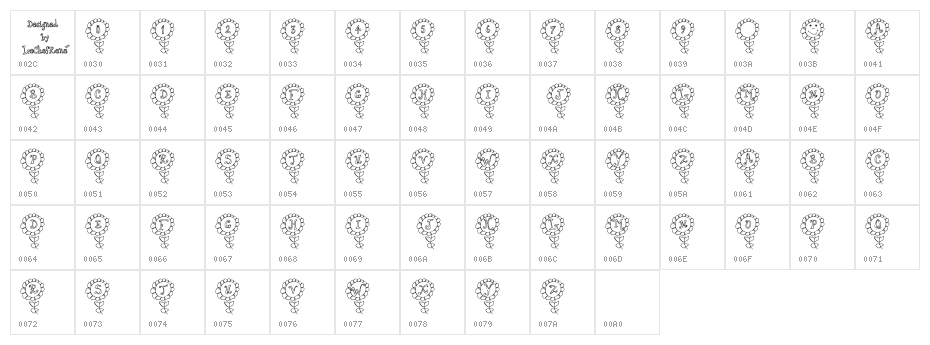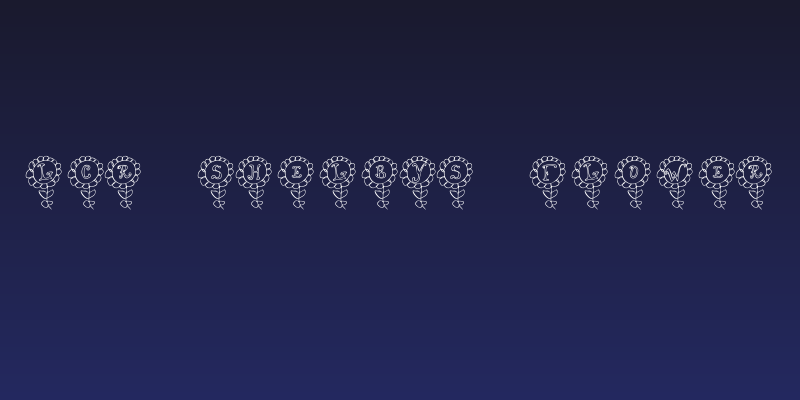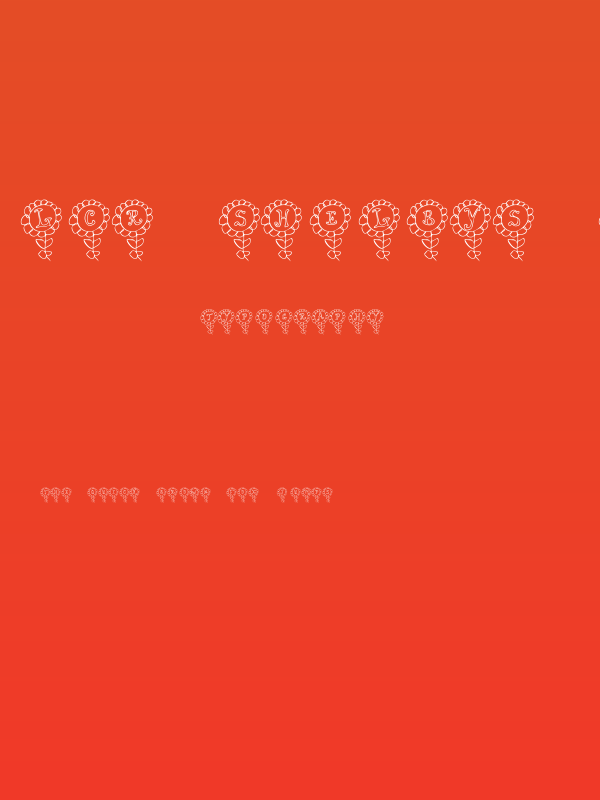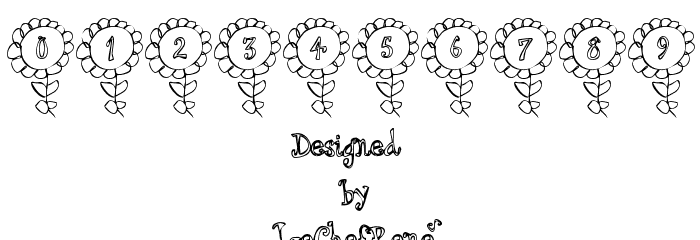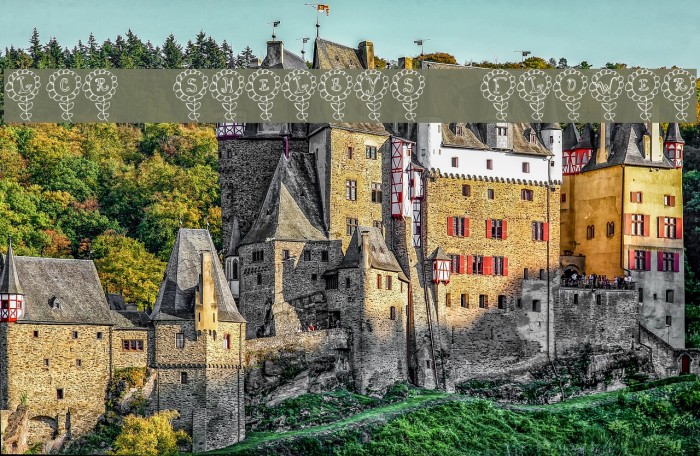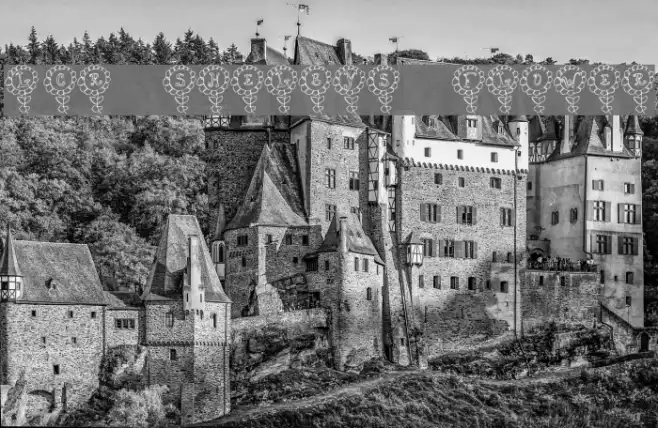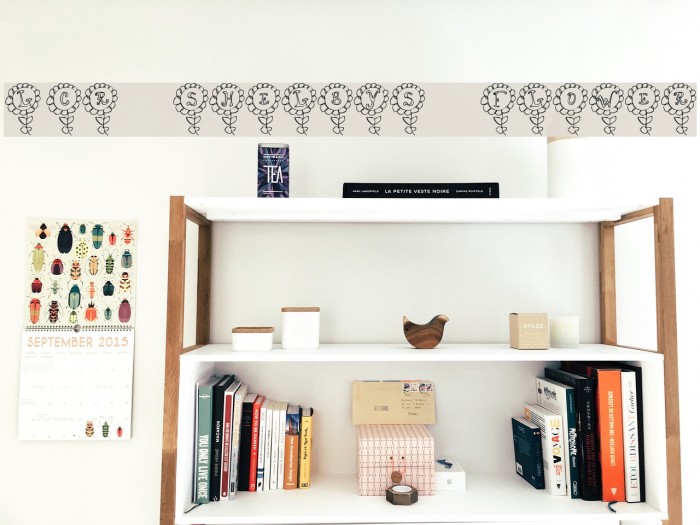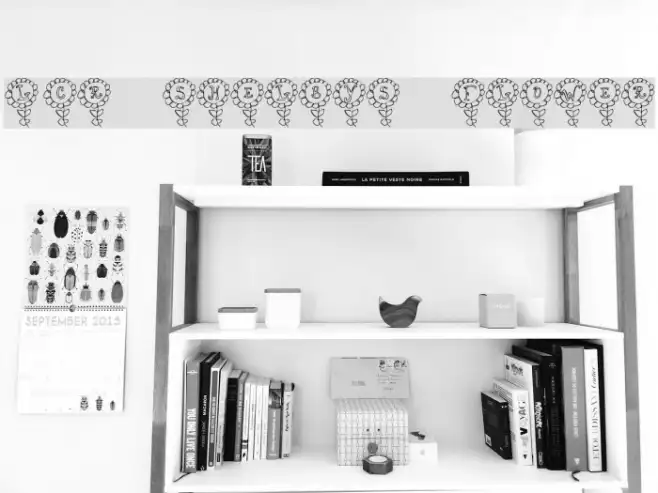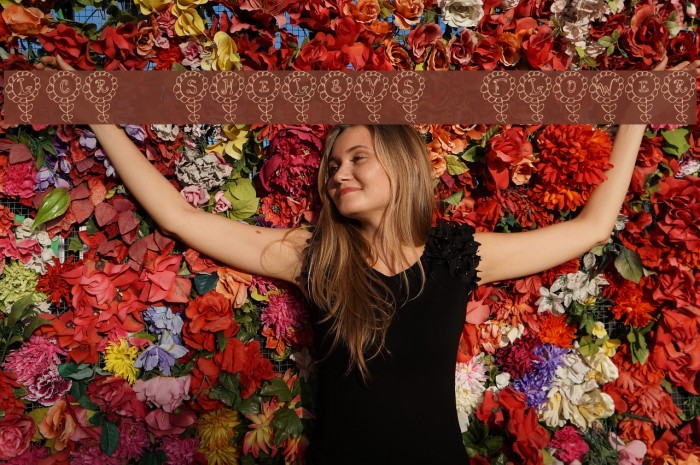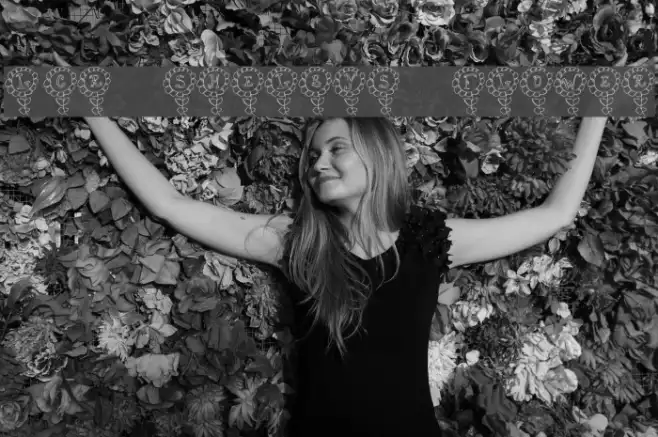
LCR Shelbys Flower Font
LCR Shelbys Flower Description
This whimsical font features each character enclosed within a charming flower design, complete with petals and a stem. The letters are playful and decorative, making them ideal for creative and lighthearted projects. The uppercase and lowercase letters maintain a consistent style, with each character nestled inside a circular flower motif. The numbers and special characters follow the same floral theme, ensuring a cohesive look across all glyphs. The font's unique design is perfect for adding a touch of nature-inspired elegance to any project.
| Proposed Projects | Perfect for greeting cards, children's books, invitations, and decorative posters. |